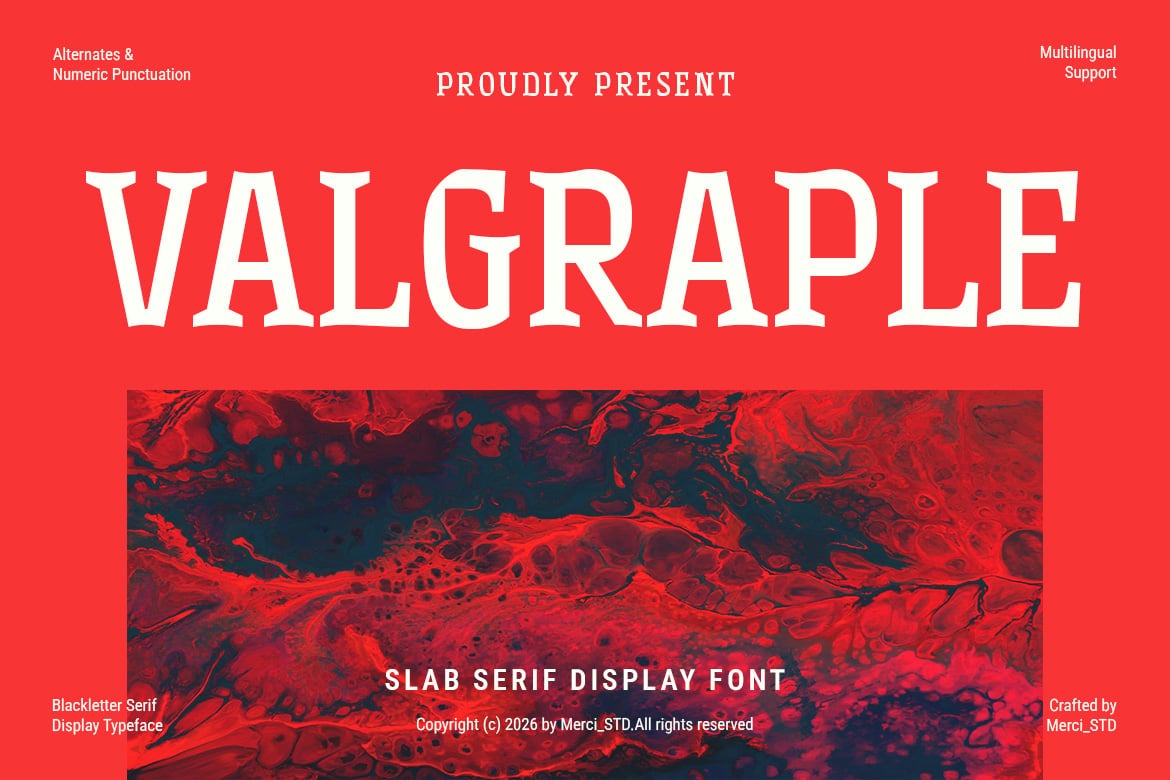
Valgraple – Bold Slab Serif Font
Valgraple – Bold Slab Serif Font is a flexible and reliable font created to fit multiple design needs, from branding and packaging to social media and editorial layouts. Valgraple is a bold slab serif display font with vintage-inspired character and powerful visual impact. Its strong letterforms are ideal for posters, branding, packaging, signage, editorial headlines, product labels, and creative promotional materials. The combination of sturdy serif details and decorative styling creates a unique and memorable display typeface.